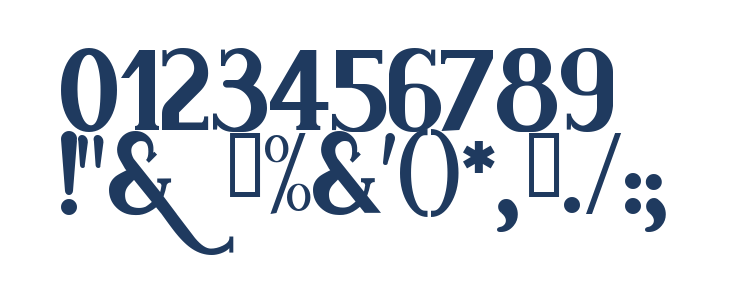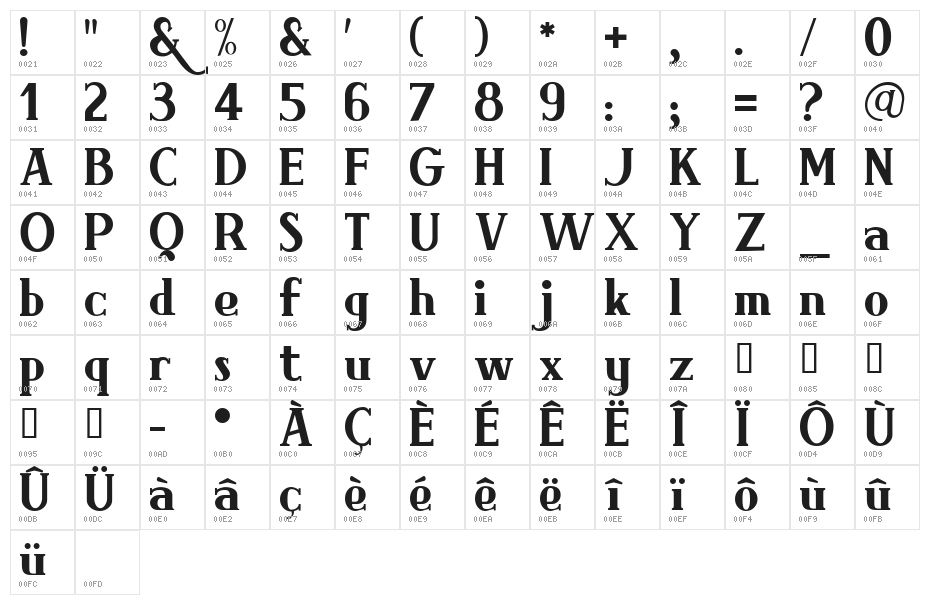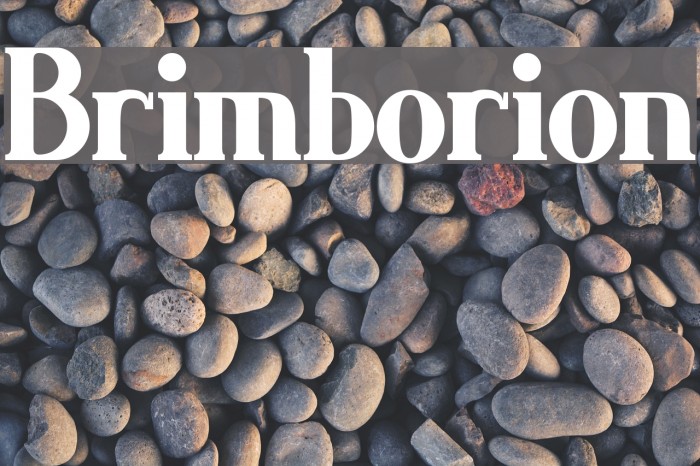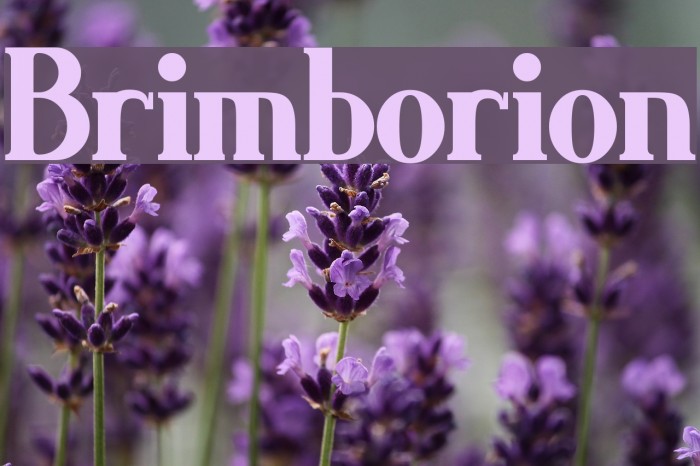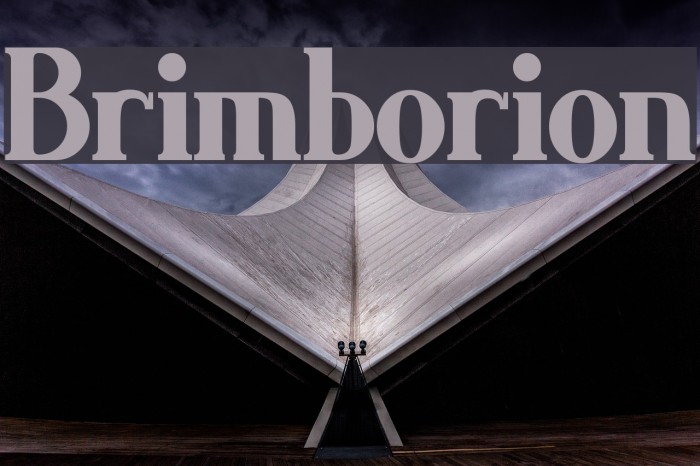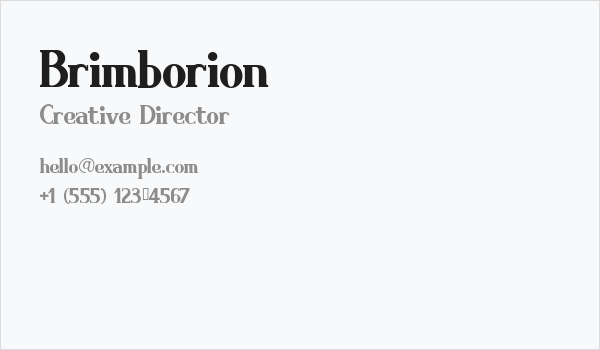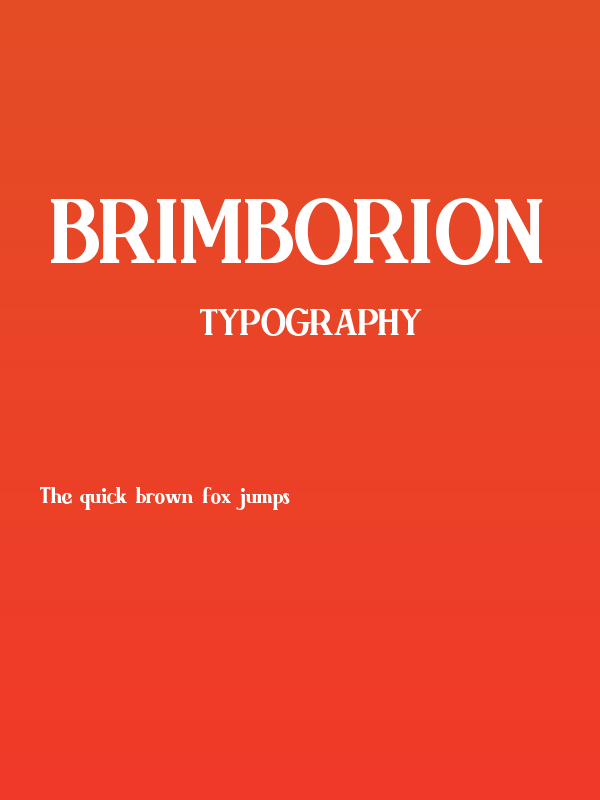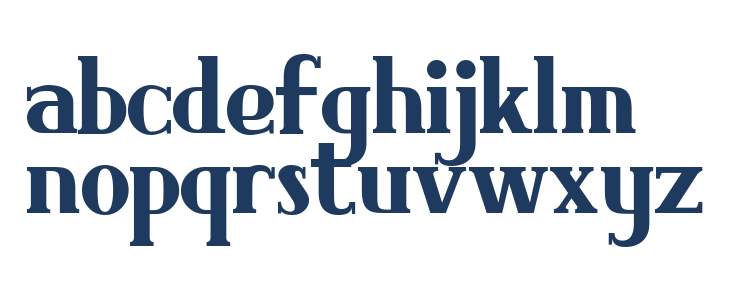
Brimborion Font
Brimborion Description
This font exhibits a bold and striking presence with its high contrast between thick and thin strokes. The serifs are pronounced, adding a classic and authoritative feel to the typeface. The uppercase letters are tall and commanding, while the lowercase letters maintain a consistent style that complements the uppercase. The numbers are clear and robust, ensuring readability. Special characters are designed with the same attention to detail, making them stand out. Overall, this font combines traditional serif elements with a modern twist, making it versatile for various design needs.
| Use Case | Headlines, Logos, Editorial design |
| Proposed Projects | Ideal for editorial design, book covers, branding, and advertising where a strong, classic presence is desired. |